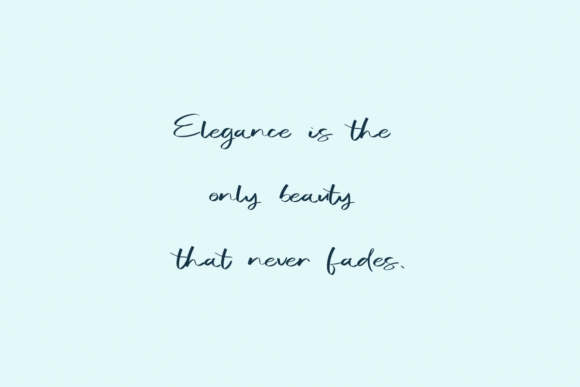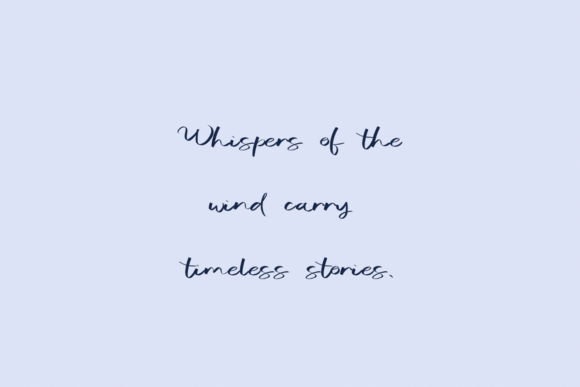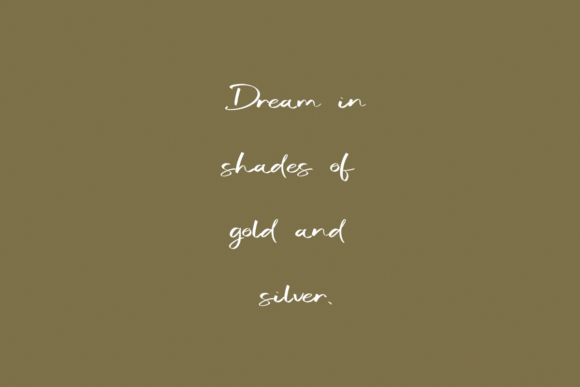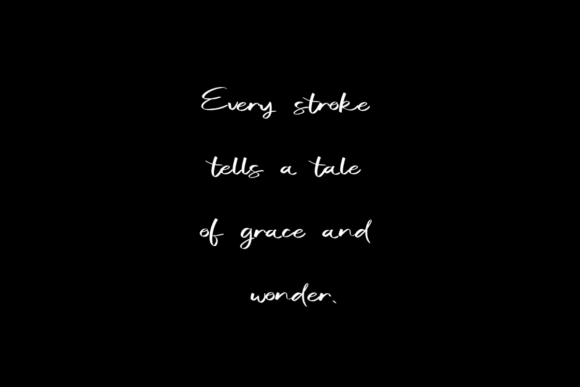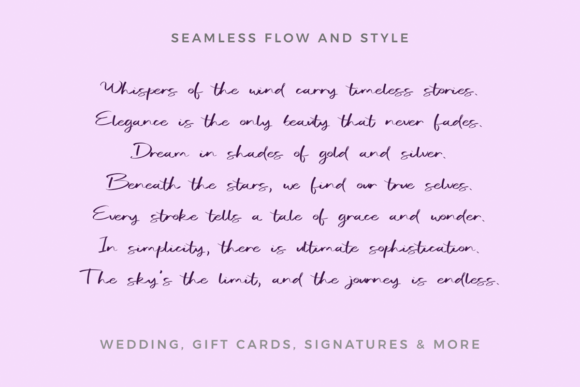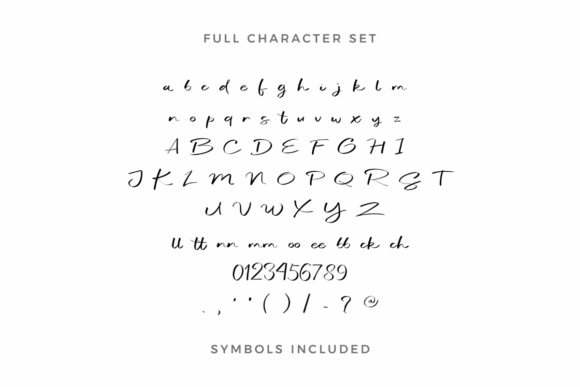
Introduction to Sidenotes Font
Introducing Sidenotes, an exquisite script font that artfully reflects the beauty of handwritten letters.
This is not just a font; itโs a testament to the allure of penmanship, beautifully embodying a personalized and lovely appeal in each stroke Perfect for any design that requires an intimate, handcrafted touch, Sidenotes is a testament of passion infused with the elegance of hand lettering.
Key Features of Sidenotes Font